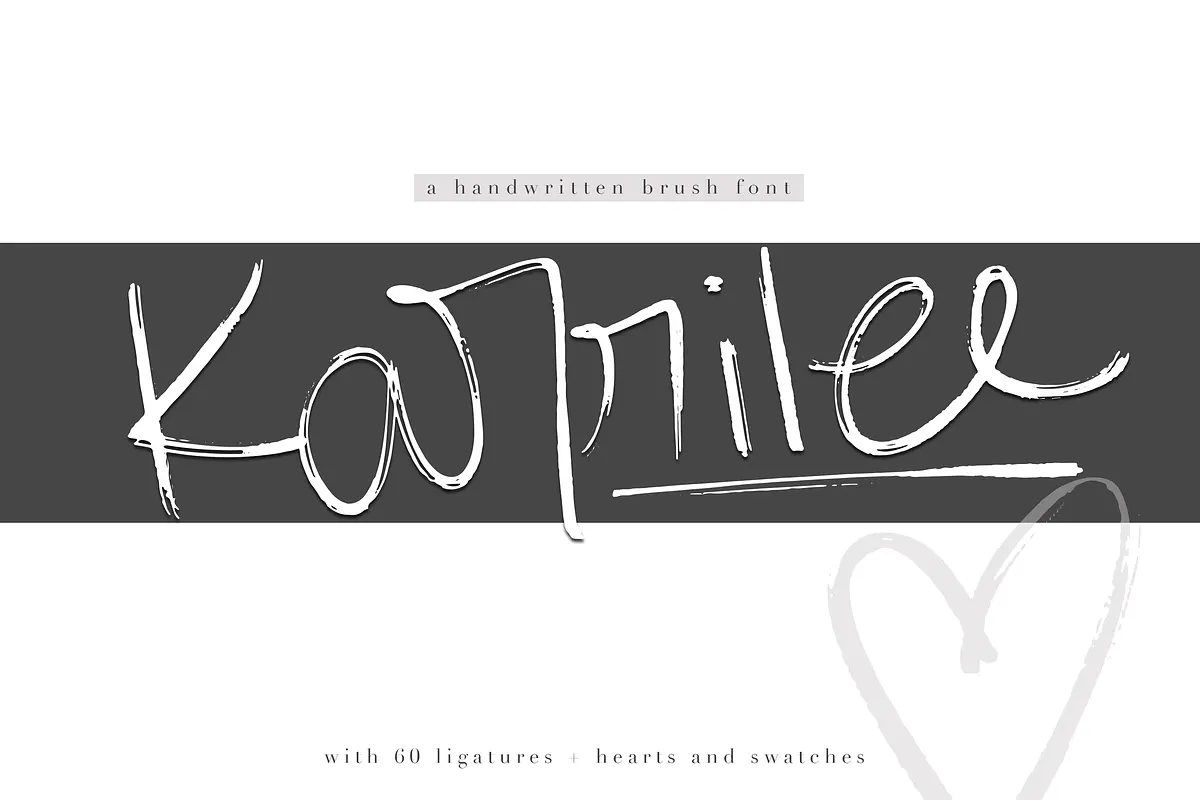
Karrilee - Handwritten Brush Font Free Download
Karrilee - Handwritten Brush Font Free Download is a dynamic and expressive typeface with a bold, artistic brushstroke design. Its spontaneous and natural feel makes it perfect for projects that require a personal touch, such as greeting cards, invitations, social media posts, logo design, and any other creative work where you want to convey energy and personality.
With its smooth, fluid strokes and slightly imperfect edges, Karrilee gives your typography an authentic, handcrafted appearance. Whether you're designing for a relaxed brand, crafting inspirational quotes, or adding flair to any project, this font brings warmth and individuality to your text.